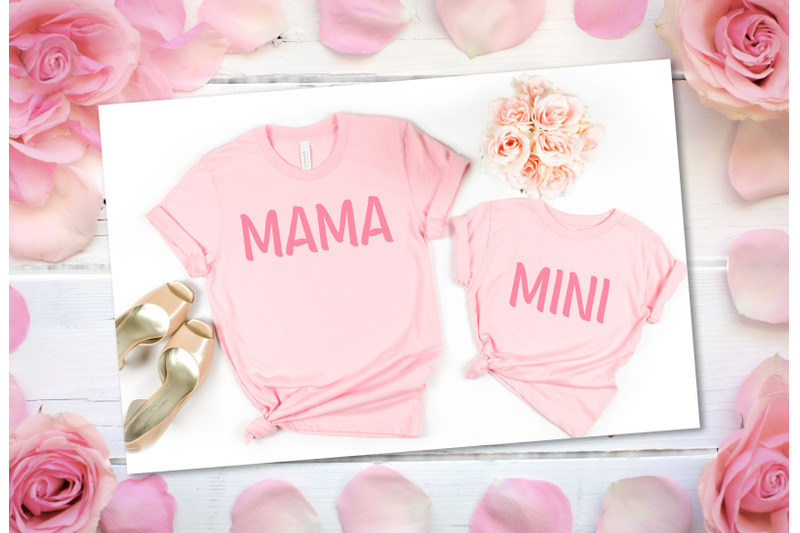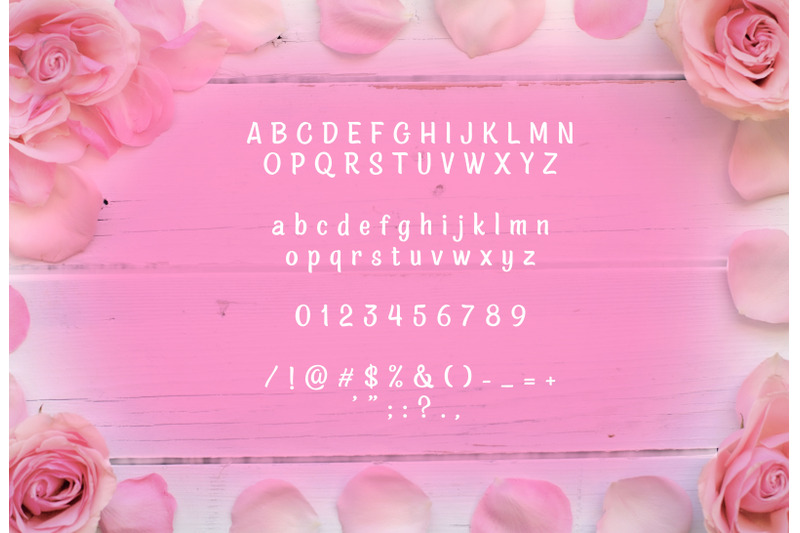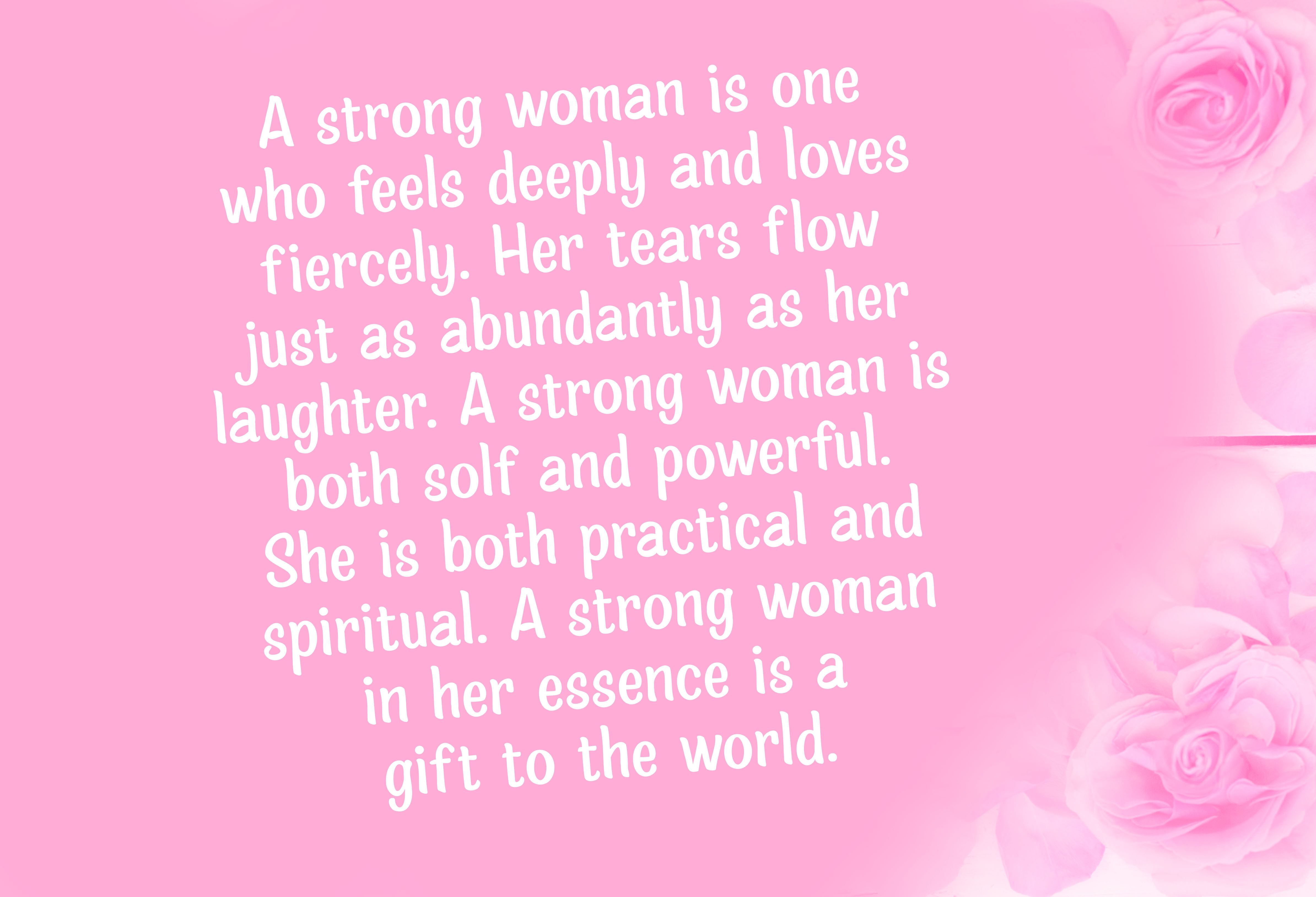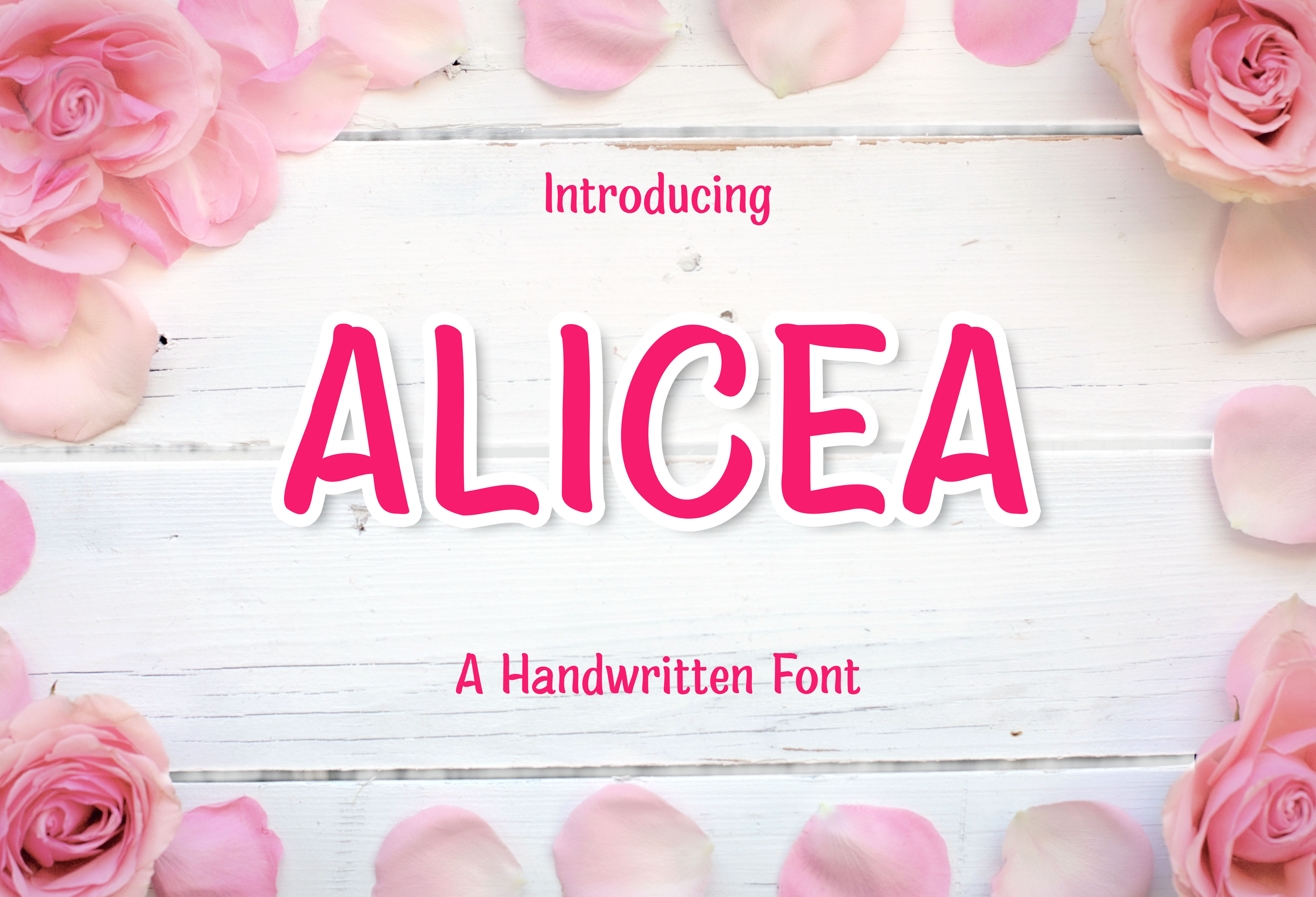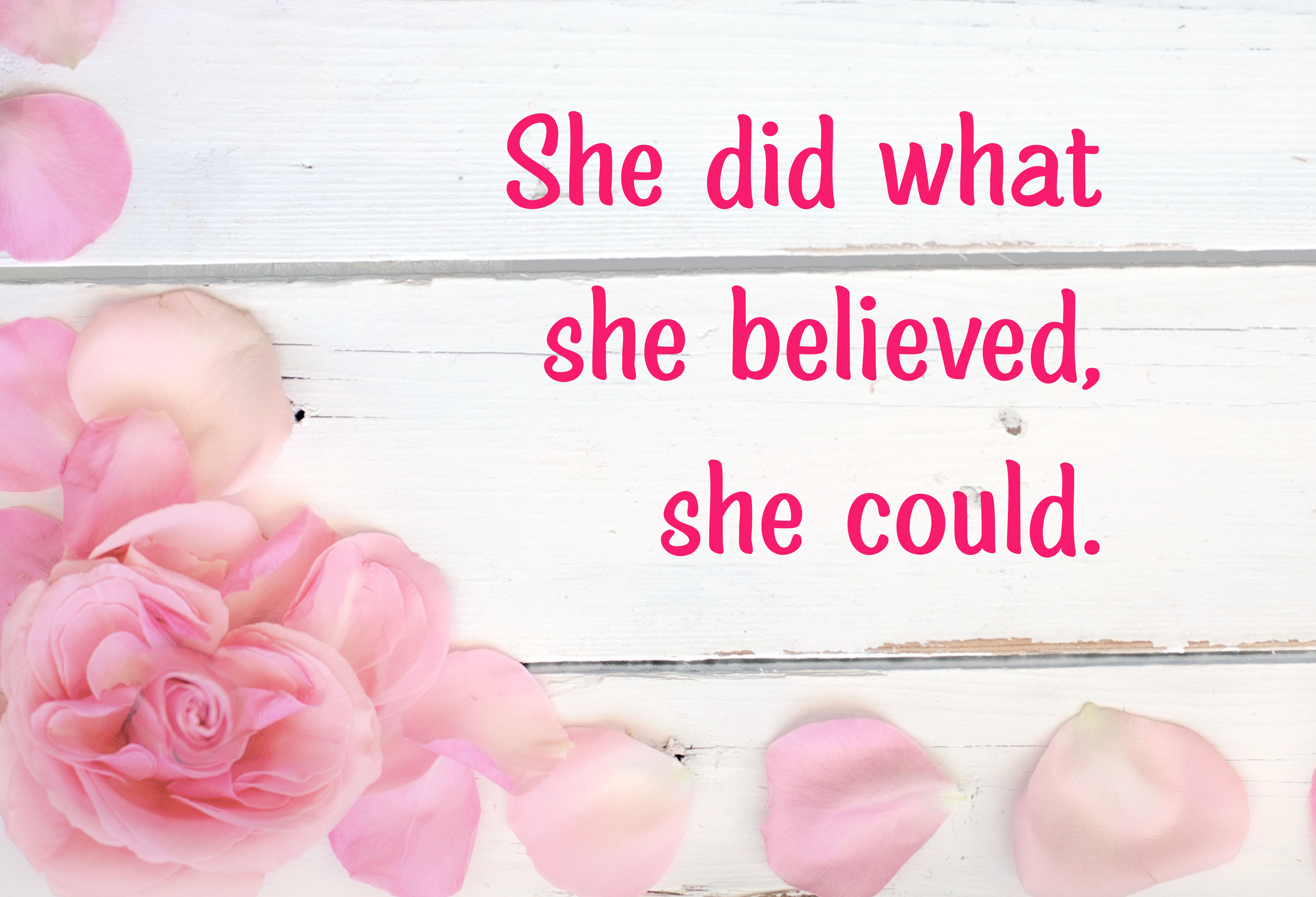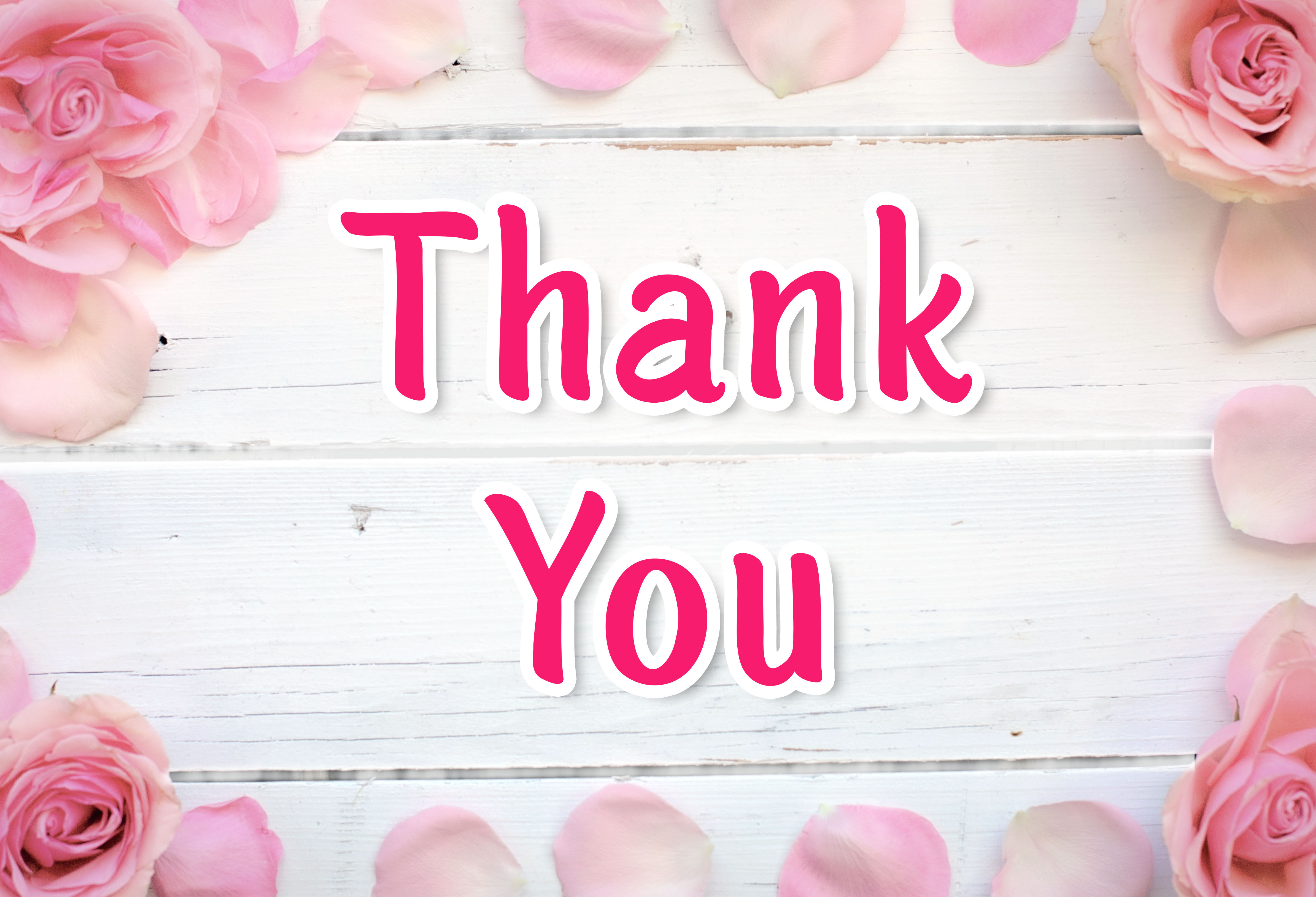
ALICEA Cute Handwritten Font
ALICEA is a playful handwritten font with a sweet and friendly style. Perfect for wedding invitations, greeting cards, logos, branding, posters, social media, and any project that needs a touch of charm. This font comes with a smooth flow and natural look, making your designs stand out beautifully.